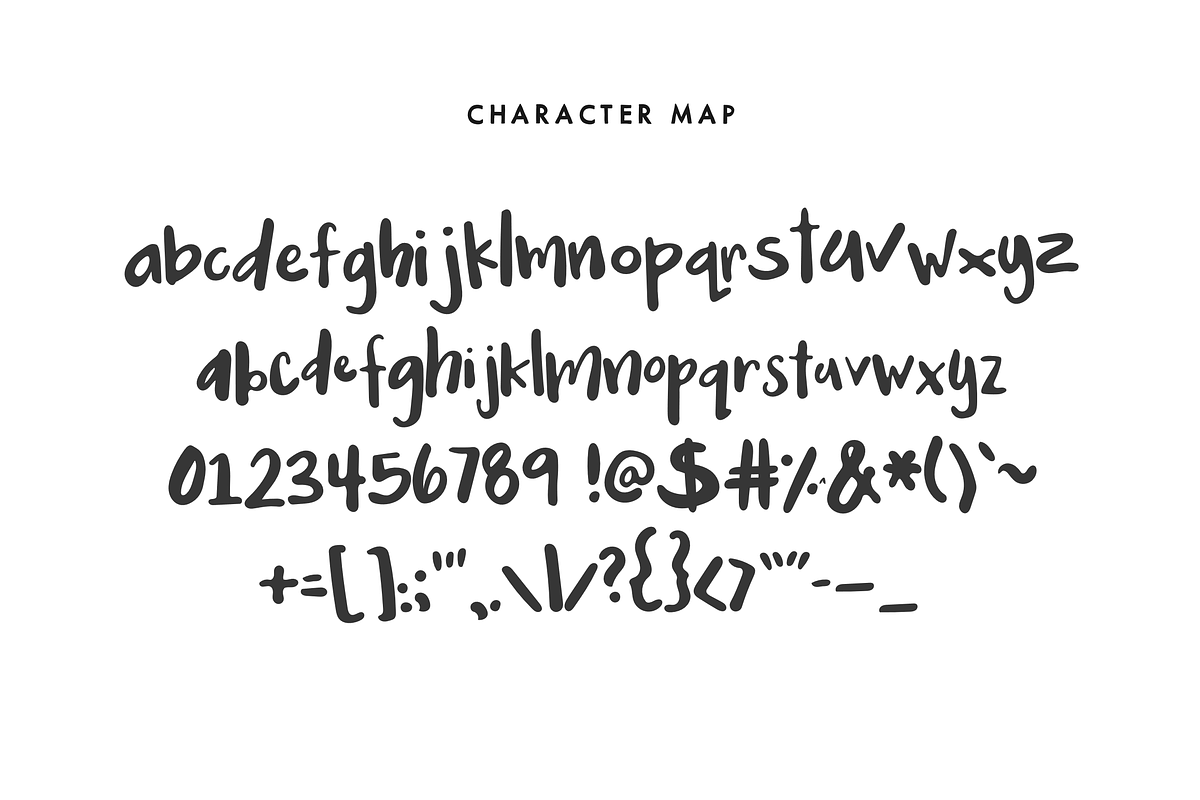
Klunker - A Handwritten Font
Klunker - A Handwritten Font by Mix Fonts is a font selected for branding, posters, packaging, typography.
- MIX KLUNKER is an adorably klunky all lowercase handwritten font, perfect for handmade and DIY themed projects.
Why Klunker - A Handwritten Font is worth a look
Klunker - A Handwritten Font by Mix Fonts fits naturally into Branding, posters, packaging, typography.